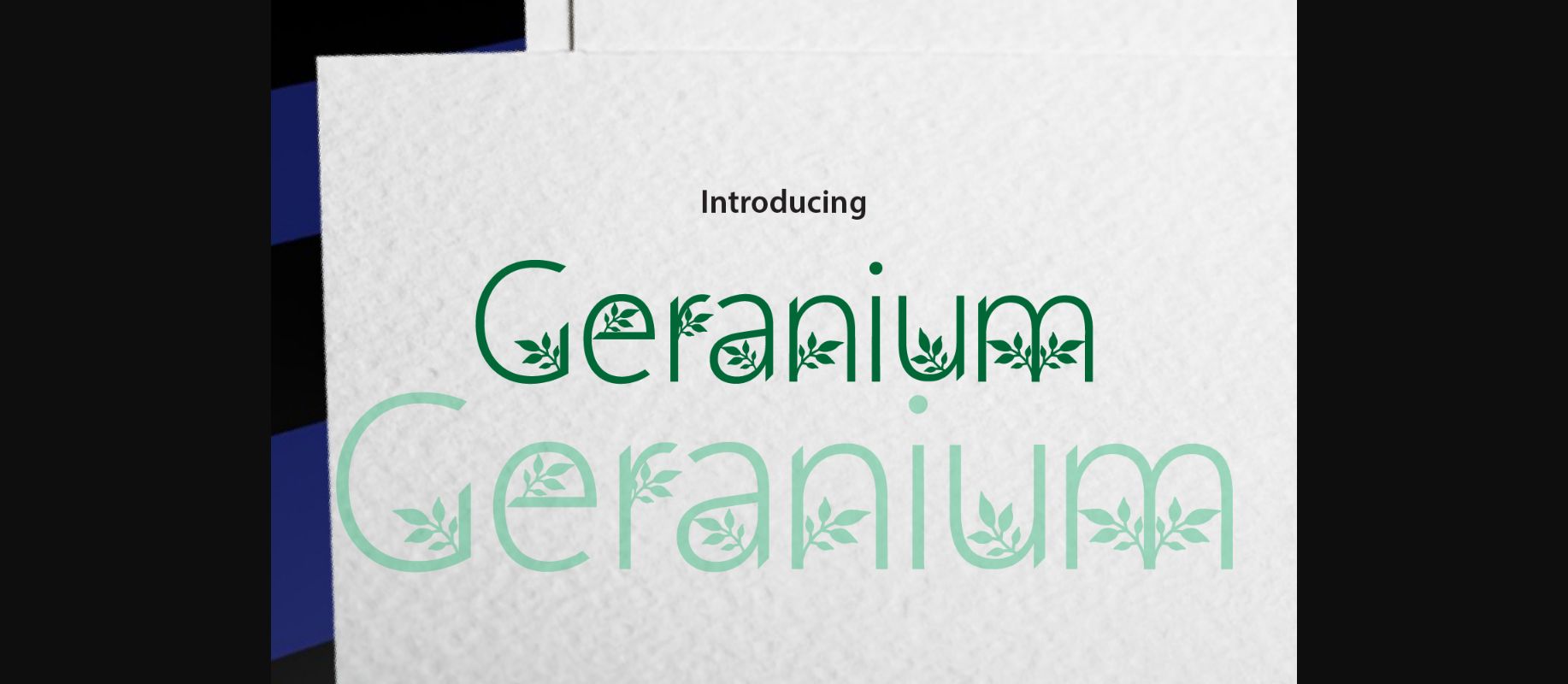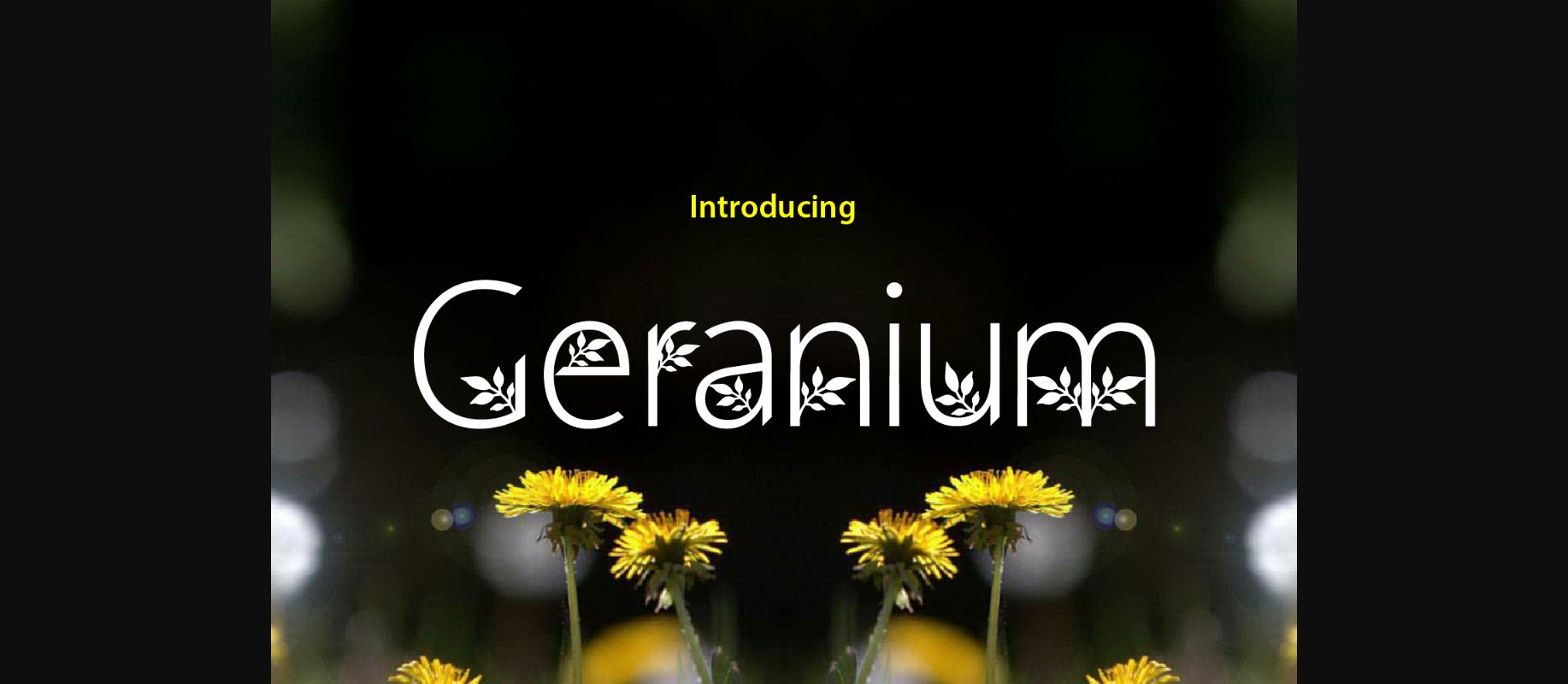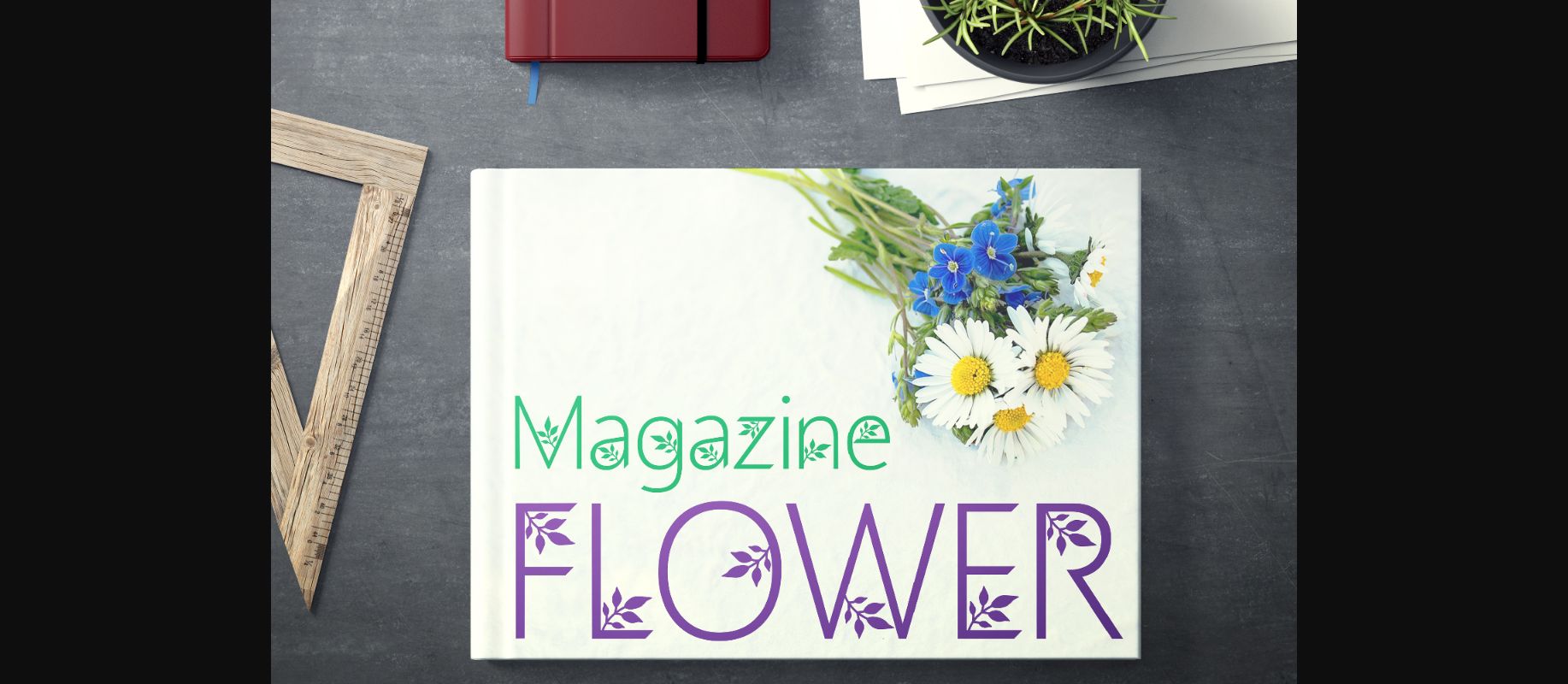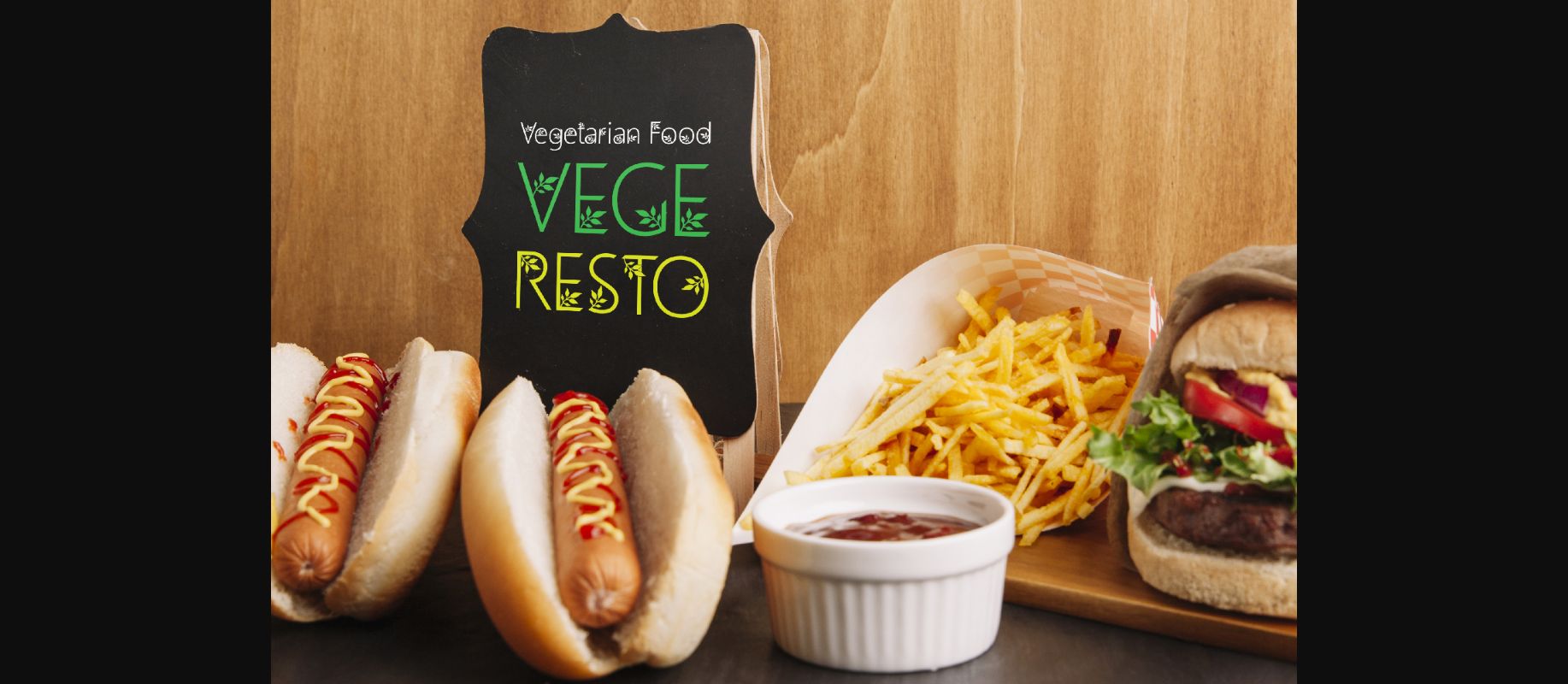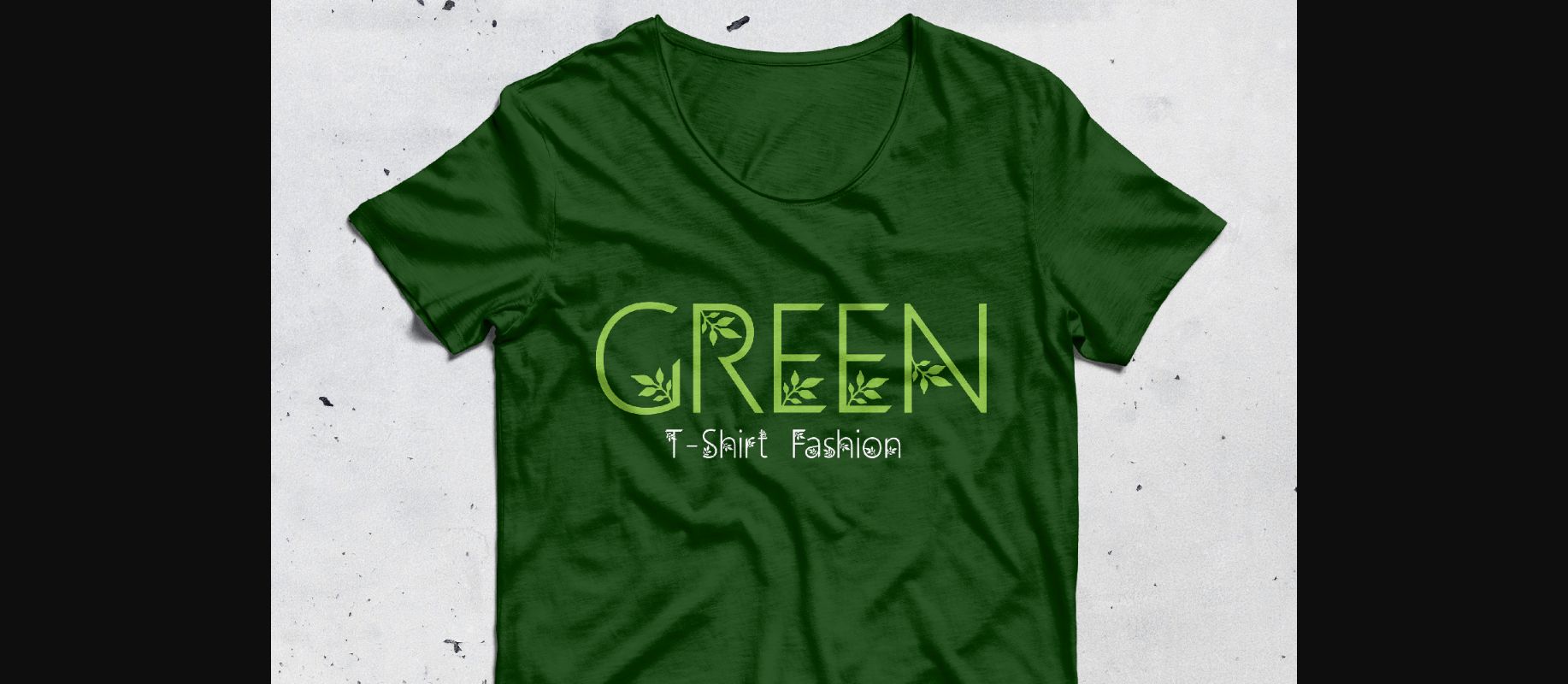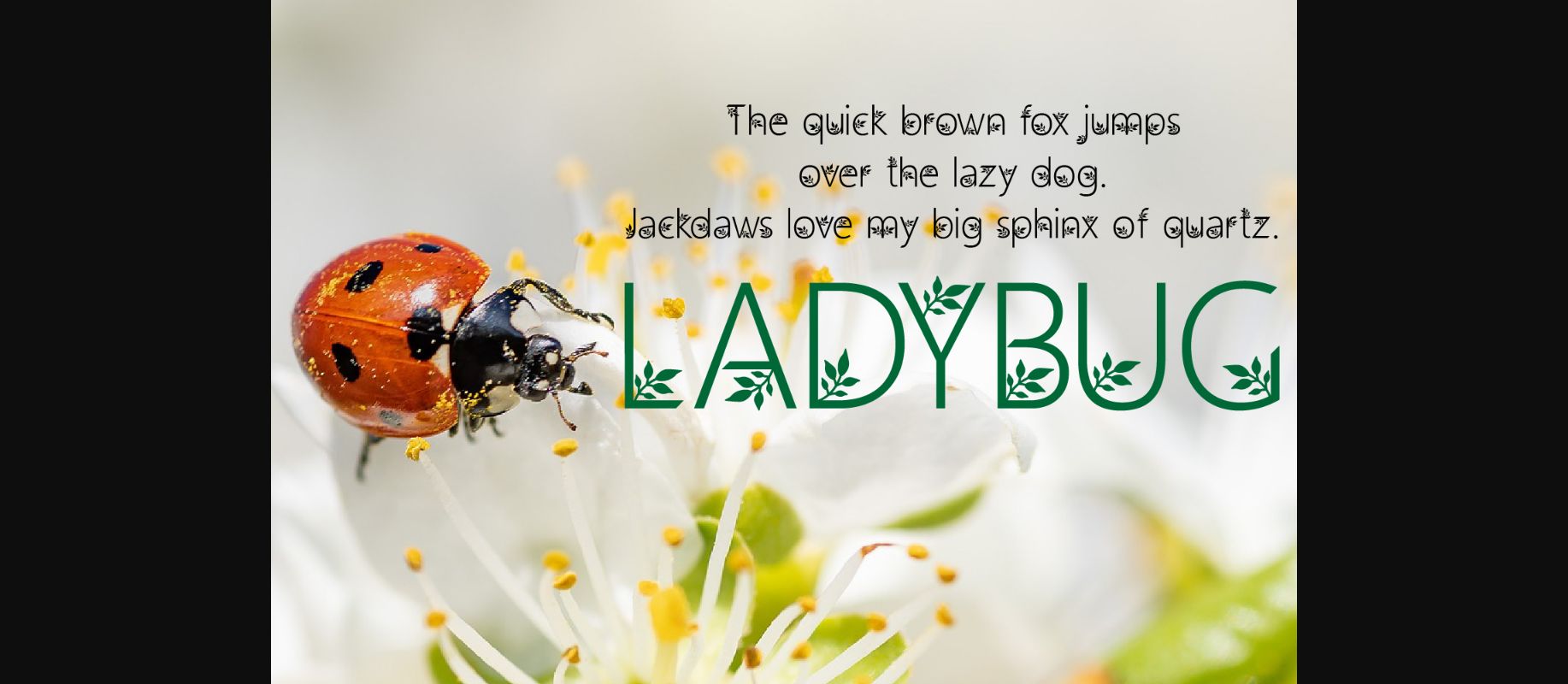
Geranium Font
About Geranium Font
Geranium is a friendly decorative font with a plant-based style. It is perfectly suited for a wide variety of projects!